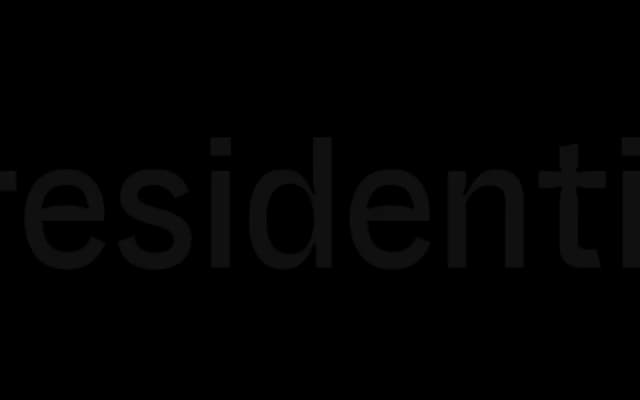
AA Gothic
Radim Pesko · Radim Peško · 2019
A display companion to A Gothic that inverts the logic of ink traps, turning functional notches into a decorative feature for headlines and inscriptions.
Where ink traps were originally cut to compensate for ink spread at small sizes, AA Gothic reverses the conceit entirely: the notched forms are purely ornamental, adding a distinctive personality at large scale. Designed by Radim Peško over five years between 2014 and 2019, the family covers Latin, Cyrillic and Greek. It has appeared in headline use for Best of The Atlantic, and pairs directly with the text-intended A Gothic.
A Gothic-derived grotesque sans designed explicitly for display use, with reversed ink traps that add decorative notching to letterforms at large sizes rather than serving a functional printing purpose.